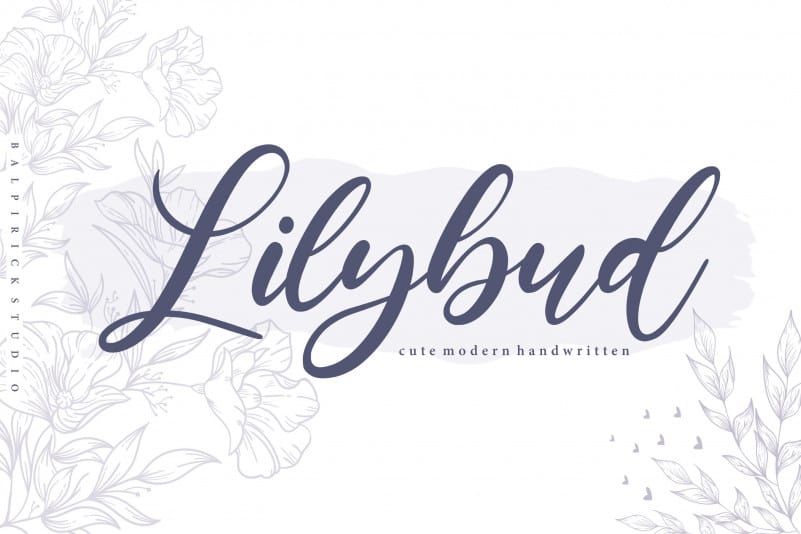
Lilybud Modern Handwritten Font
Introducing “Lilybud Font” is a modern handwritten & calligraphy script font, every letter has been carefully crafted to make your text look beautiful with an elongated connection model.
With a modern script style this font will be perfect for various projects, for example: weddings, invitations, greeting cards, posters, business cards, quotes, blog headers, branding, logos, fashion, clothing, letters, stationery.